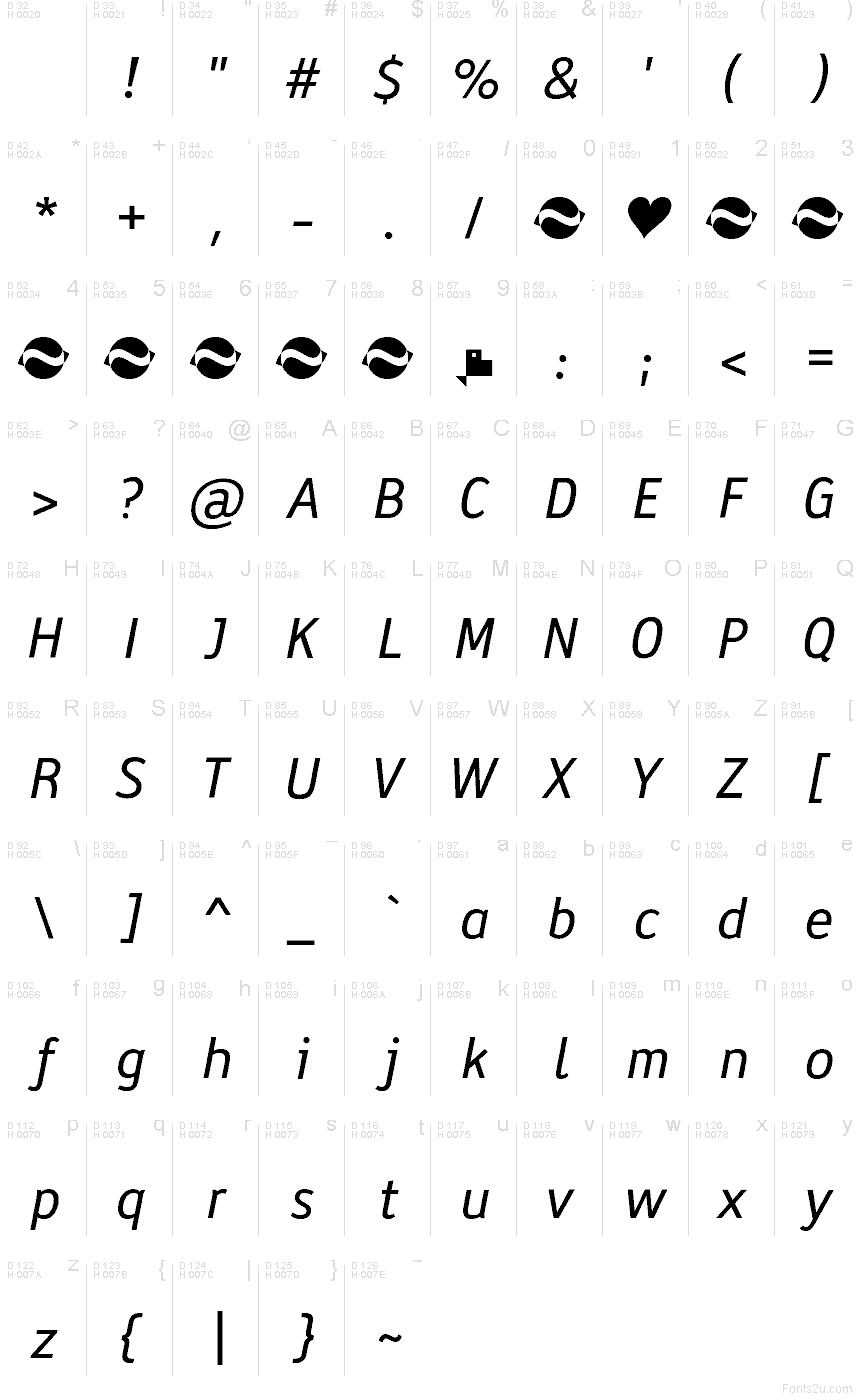
Biotrip Italic
Biotrip Italic font by Fernando Haro of deFharo is a free sans serif font with a built‑in sense of motion. The letters lean forward with a quick, confident slant, while the smooth curves and clean cuts keep everything sharp and contemporary. It feels like a word caught mid‑stride—great when you need text that looks active, urgent, and intentional without turning messy or chaotic.
Using Biotrip Italic, you can energize sport branding, tech logos, music posters, product packaging, UI call‑to‑action buttons, and bold social graphics. This free font reads clearly at medium sizes, then gets punchy as you scale it up for big statements. For longer supporting text, pair Biotrip Italic with the upright Biotrip family or a simple grotesque to keep the spotlight on its sleek, forward-driving rhythm.
Biotrip Sans is a friendly typeface family that is, above all, a journey. A journey (Trip) from the purity of geometry to the warmth of the organic (Bio).
Biotrip Sans comprises 14 methodically designed fonts, distributed across 2 styles (Regular and a genuine, flowing Italic) and 7 weights, ranging from the ethereal elegance of Light to the powerful impact of Black.